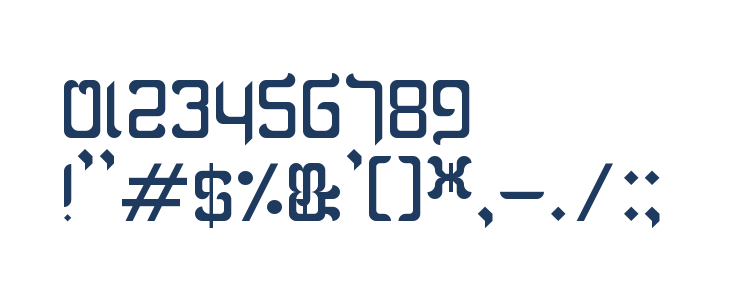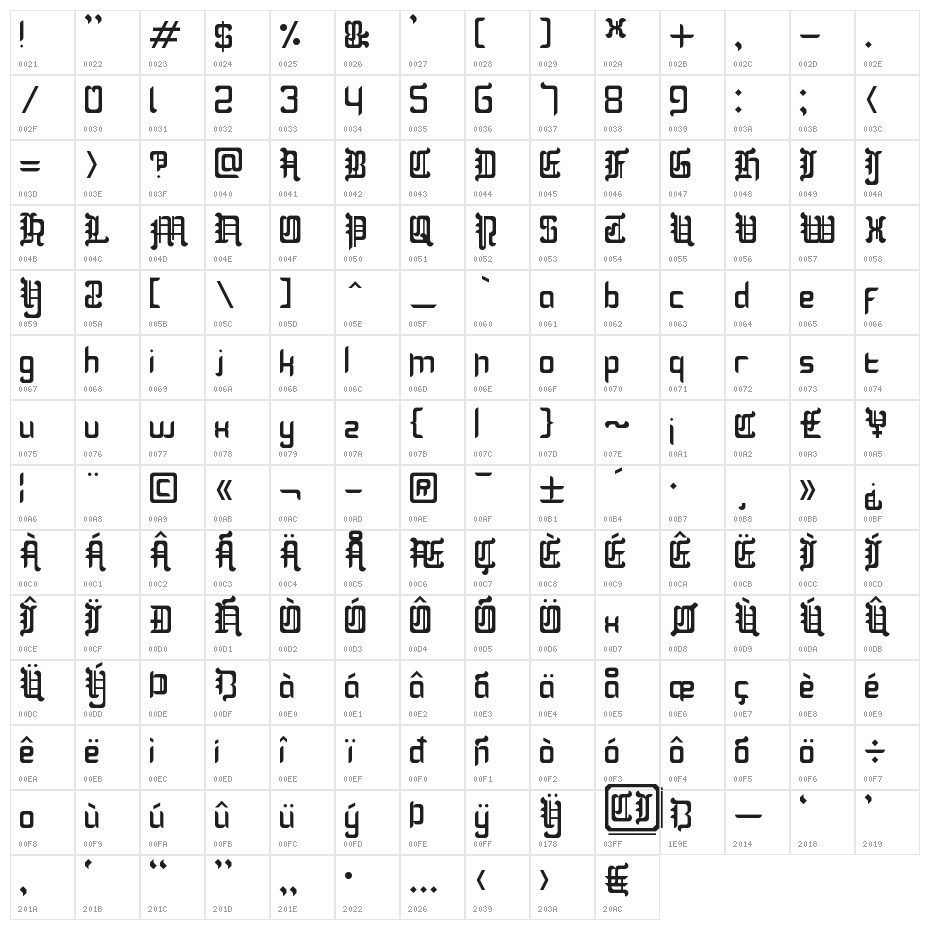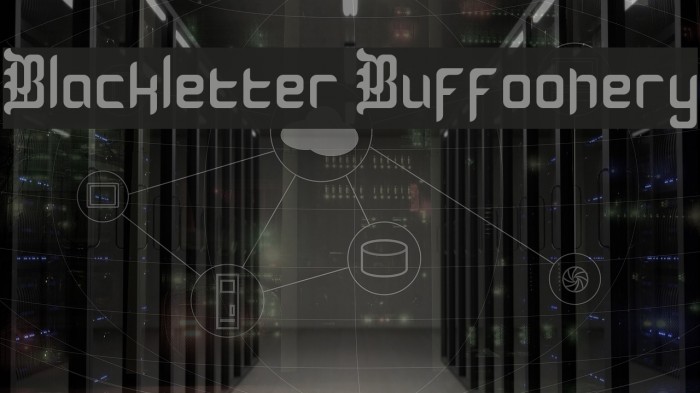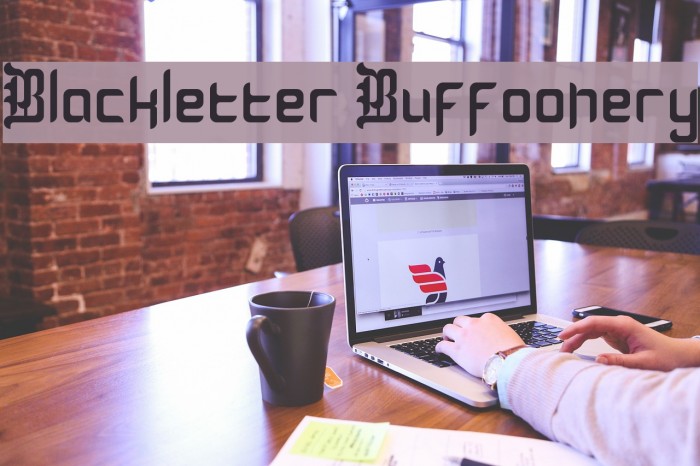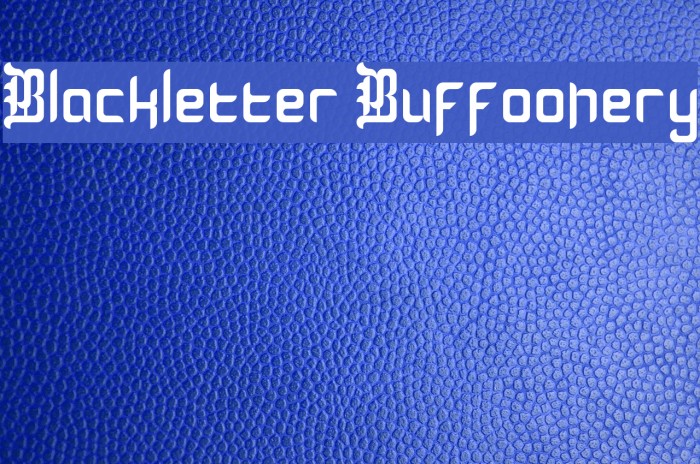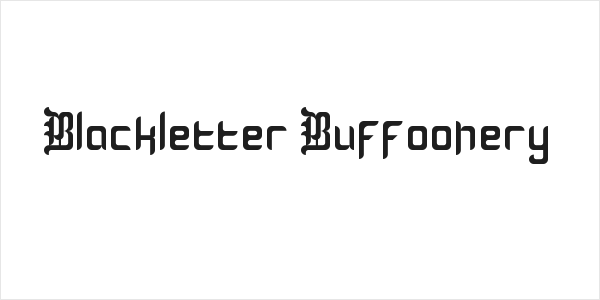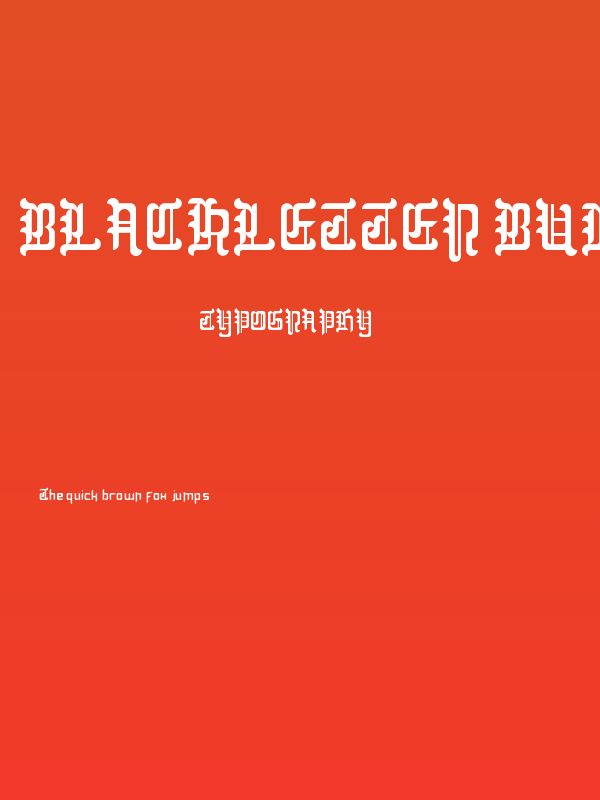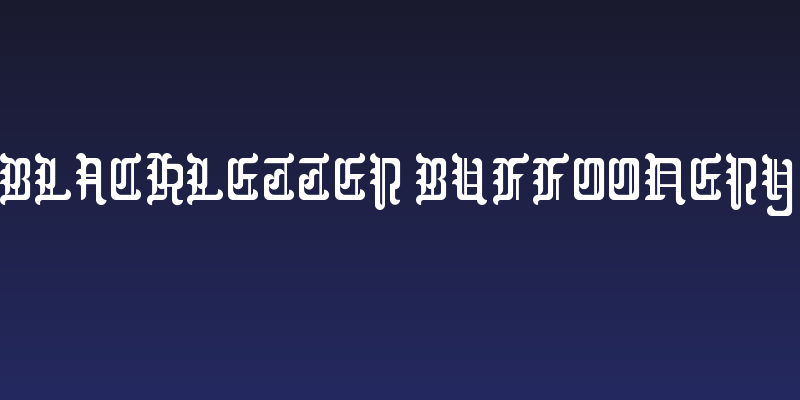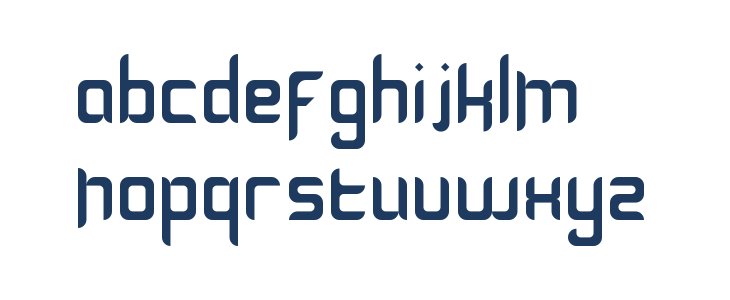
Blackletter Buffoonery Font
Blackletter Buffoonery Description
This font features a bold and striking blackletter style, characterized by its intricate and ornate letterforms. The uppercase letters exhibit traditional blackletter elements with sharp angles and decorative flourishes, while the lowercase letters maintain a more modern and streamlined appearance. The numerals are consistent with the overall style, offering a unique blend of historical and contemporary design. Special characters are thoughtfully integrated, enhancing the font's versatility. This font's distinctive style makes it ideal for projects that require a touch of elegance and historical flair.